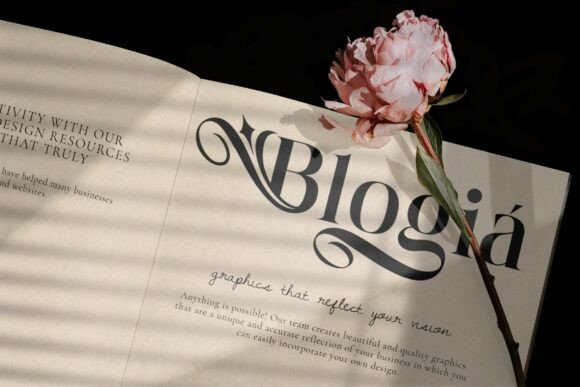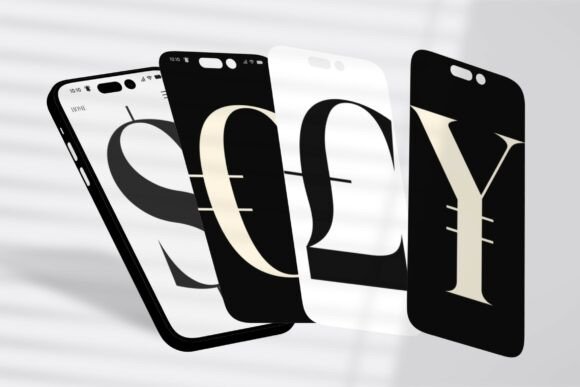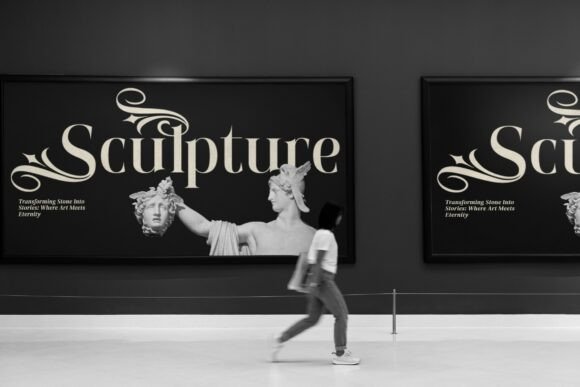
Introduction to Shanolia Font
Enhance your designs with Shanolia, a modern, elegant serif font that exudes sophistication and grace.
Capture the essence of classic beauty and high-end luxury with Shanodia, a breathtaking, modern elegant serif font defined by its dramatically high contrast and stunning, integrated decorative swashes This spectacular modern elegant serif font features extremely thick vertical stems paired with delicate, hairline serifs, creating a bold yet graceful visual rhythm that commands attention.